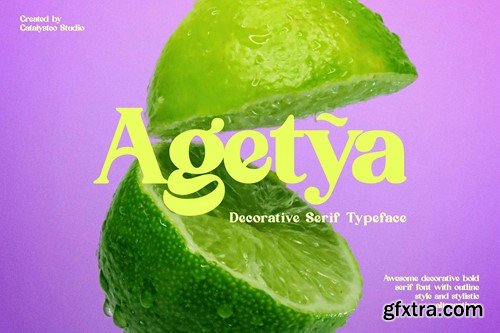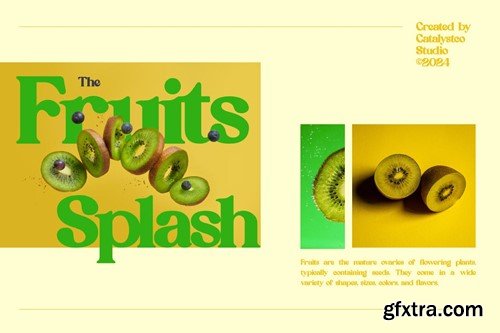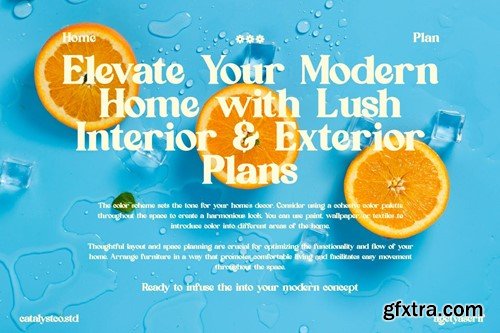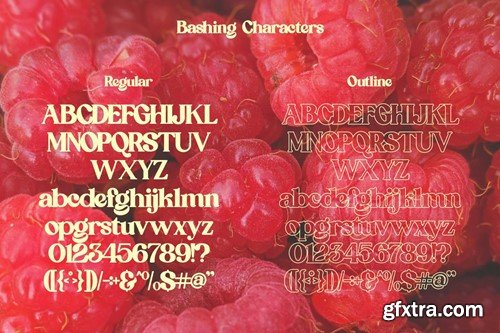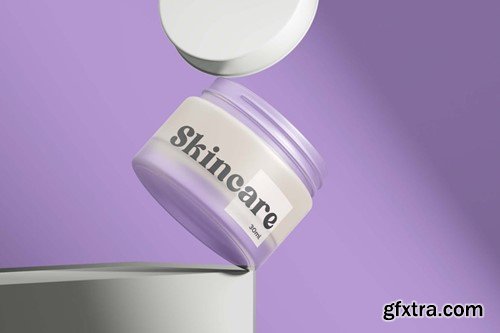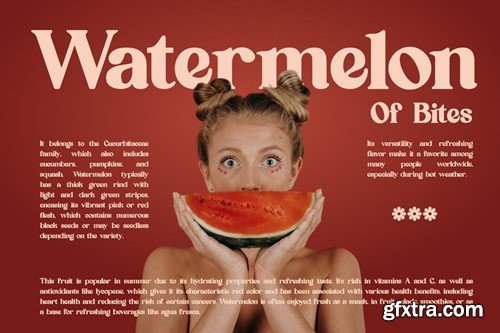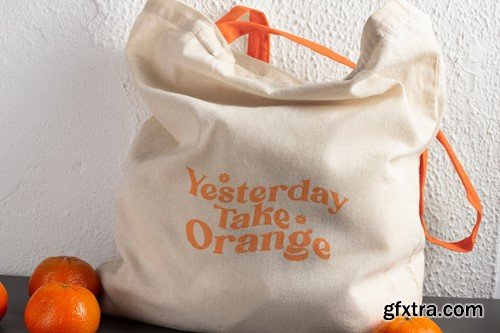
阿杰泰雅装饰衬线字体N8MY8WS
Agetya Decorative Serif Typeface N8MY8WS
Agetya Decorative Serif Typeface
Agetya Decorative Serif Typeface typeface excellent used for the manufacture quote text, logotype, header magazine, and many more.
Main Features
• Ligatures & Alternate
• Numeral & Punctuations
• Regular & Outline Font Version